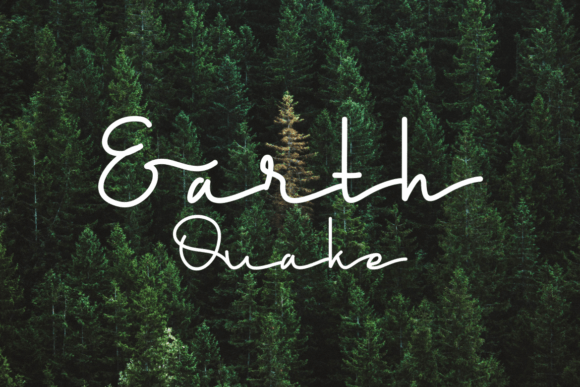
Earth Quake Font: A Fun and Modern Handwritten Signature Font
Are you looking for a font that can add a personal touch to your designs, crafts, and digital projects? Look no further than the Earth Quake font, a fun and modern handwritten signature font that is perfect for a variety of occasions. In this article, we’ll take a closer look at the Earth Quake font, its features, and how you can use it to elevate your designs.
What is Earth Quake Font?
Earth Quake font is a handwritten signature font that is designed to add a personal and unique touch to your designs. It’s a modern font that is perfect for crafts, digital design, presentations, and making greeting cards. The font has a fun and playful vibe that makes it perfect for a variety of occasions, from casual to formal.
Features of Earth Quake Font
The Earth Quake font has several features that make it a great choice for designers and crafters. Some of its key features include:
- Handwritten signature style: The Earth Quake font has a handwritten signature style that gives it a personal and unique touch.
- Modern design: The font has a modern design that makes it perfect for a variety of occasions, from casual to formal.
- Fun and playful vibe: The font has a fun and playful vibe that makes it perfect for crafts, digital design, and presentations.
- Easy to read: The font is easy to read, making it perfect for use in body text or headings.
Uses of Earth Quake Font
The Earth Quake font is a versatile font that can be used for a variety of purposes. Some of the ways you can use the Earth Quake font include:
- Crafts: The Earth Quake font is perfect for use in crafts, such as scrapbooking, card making, and journaling.
- Digital design: The font is great for use in digital design, such as creating social media graphics, blog posts, and website headers.
- Presentations: The Earth Quake font is perfect for use in presentations, such as creating slides, handouts, and speaker notes.
- Greeting cards: The font is great for use in making greeting cards, such as birthday cards, holiday cards, and thank you cards.
Why Choose Earth Quake Font?
There are several reasons why you should choose the Earth Quake font for your designs. Some of the reasons include:
- Unique and personal touch: The Earth Quake font adds a unique and personal touch to your designs, making them stand out from the crowd.
- Versatile: The font is versatile and can be used for a variety of purposes, from crafts to digital design.
- Easy to read: The font is easy to read, making it perfect for use in body text or headings.
- Fun and modern: The Earth Quake font has a fun and modern vibe that makes it perfect for a variety of occasions.
Tips for Using Earth Quake Font
Here are some tips for using the Earth Quake font in your designs:
- Use it sparingly: Use the Earth Quake font sparingly to add emphasis to your designs.
- Pair it with other fonts: Pair the Earth Quake font with other fonts to create a unique and interesting combination.
- Experiment with colors: Experiment with different colors to find the perfect combination for your design.
- Keep it simple: Keep your design simple and clean to let the font shine.
In conclusion, the Earth Quake font is a fun and modern handwritten signature font that is perfect for a variety of occasions. Its unique and personal touch, versatility, and ease of use make it a great choice for designers and crafters. Whether you’re using it for crafts, digital design, presentations, or making greeting cards, the Earth Quake font has the potential to become your favorite go-to font.
- What is the Earth Quake font?: The Earth Quake font is a handwritten signature font that is designed to add a personal and unique touch to your designs.
- What can I use the Earth Quake font for?: You can use the Earth Quake font for a variety of purposes, including crafts, digital design, presentations, and making greeting cards.
- Is the Earth Quake font easy to read?: Yes, the Earth Quake font is easy to read, making it perfect for use in body text or headings.
- Can I pair the Earth Quake font with other fonts?: Yes, you can pair the Earth Quake font with other fonts to create a unique and interesting combination.